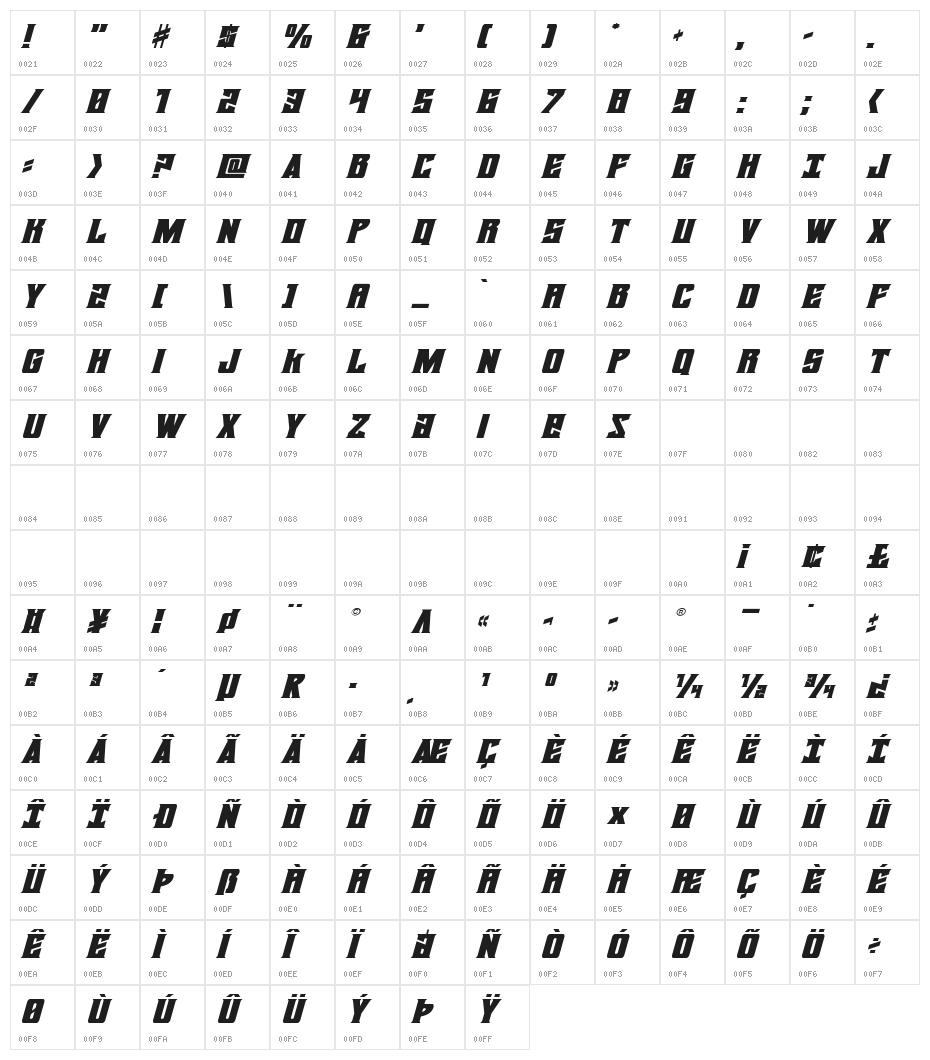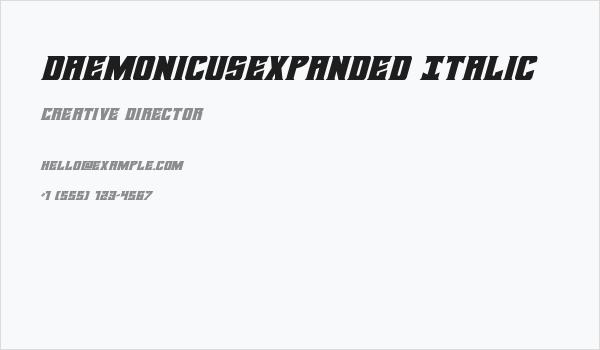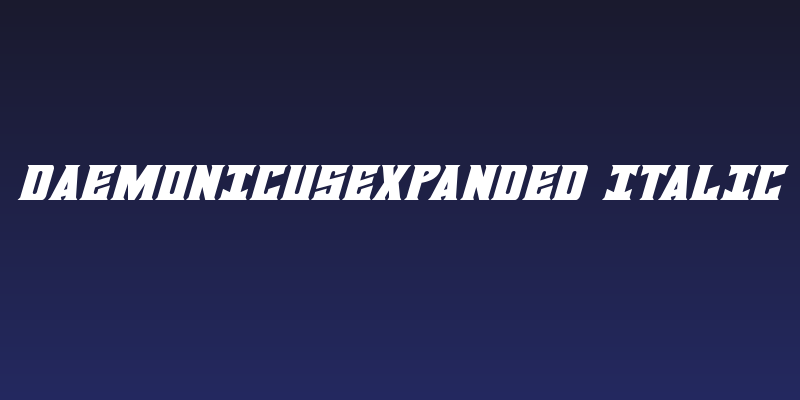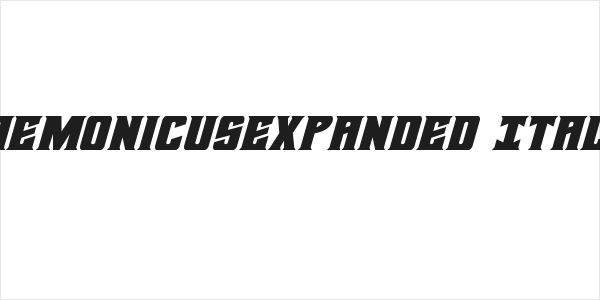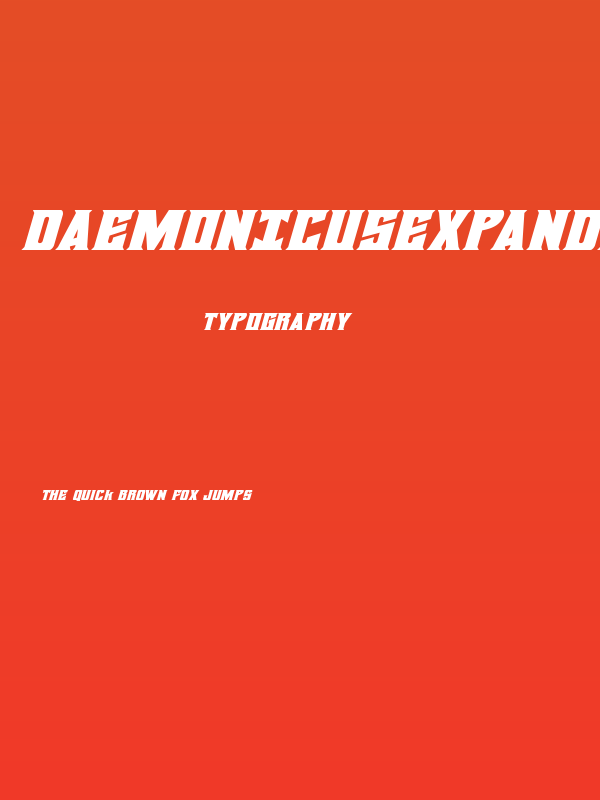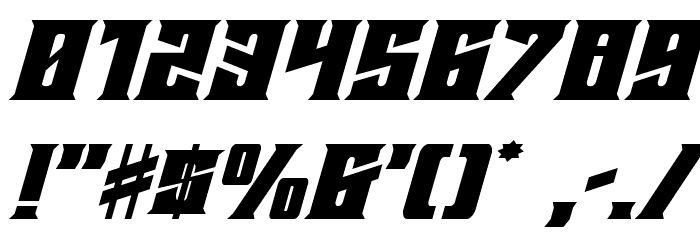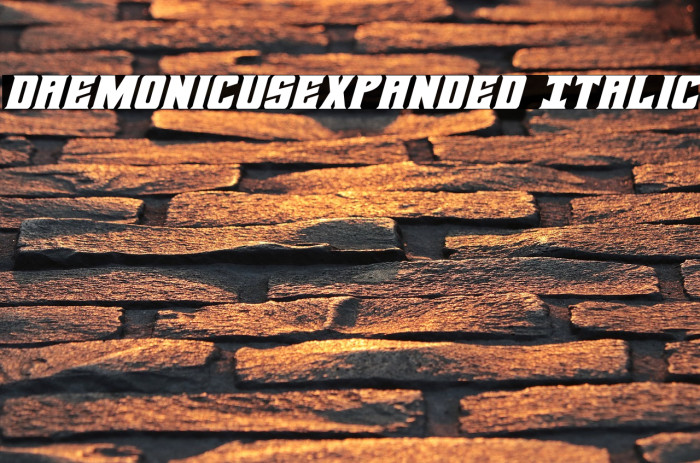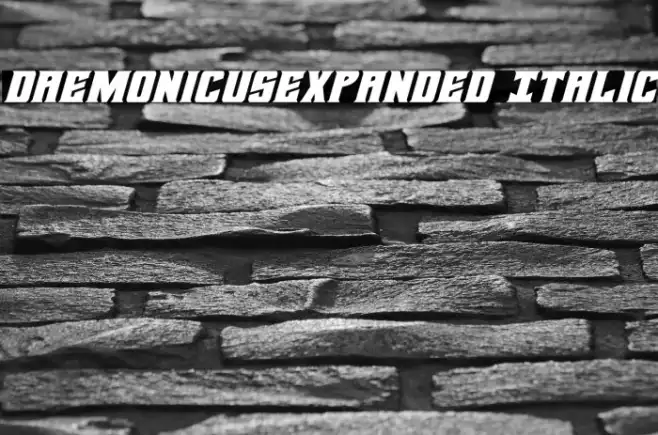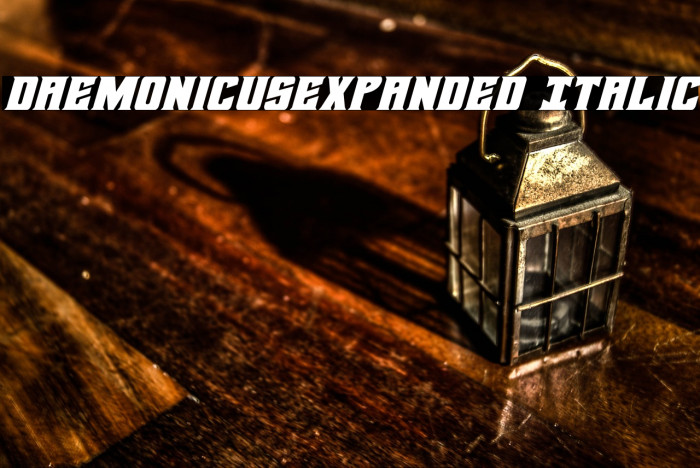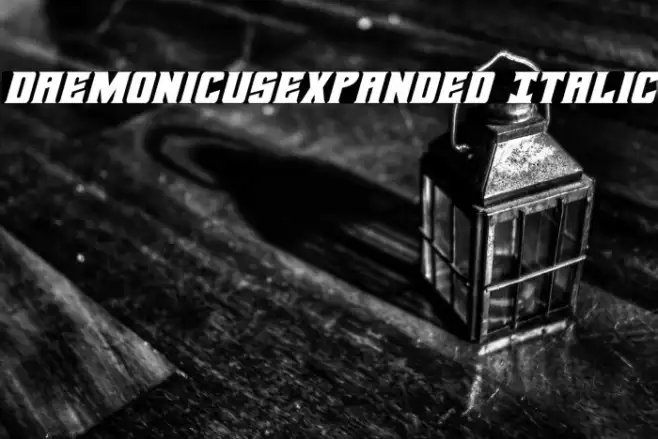
DaemonicusExpanded Italic Font
DaemonicusExpanded Italic Description
This font features a bold and dynamic style with an italic slant, creating a sense of movement and energy. The characters are expanded, giving them a wide and commanding presence. Each letter is crafted with sharp angles and strong lines, contributing to a modern and aggressive aesthetic. The uppercase and lowercase letters maintain a consistent style, while the numbers and special characters are designed to match the overall boldness and flair. This font is ideal for projects that require a striking and impactful visual element.
| Proposed Projects | Perfect for sports branding, action movie posters, video game titles, and dynamic advertising campaigns. |